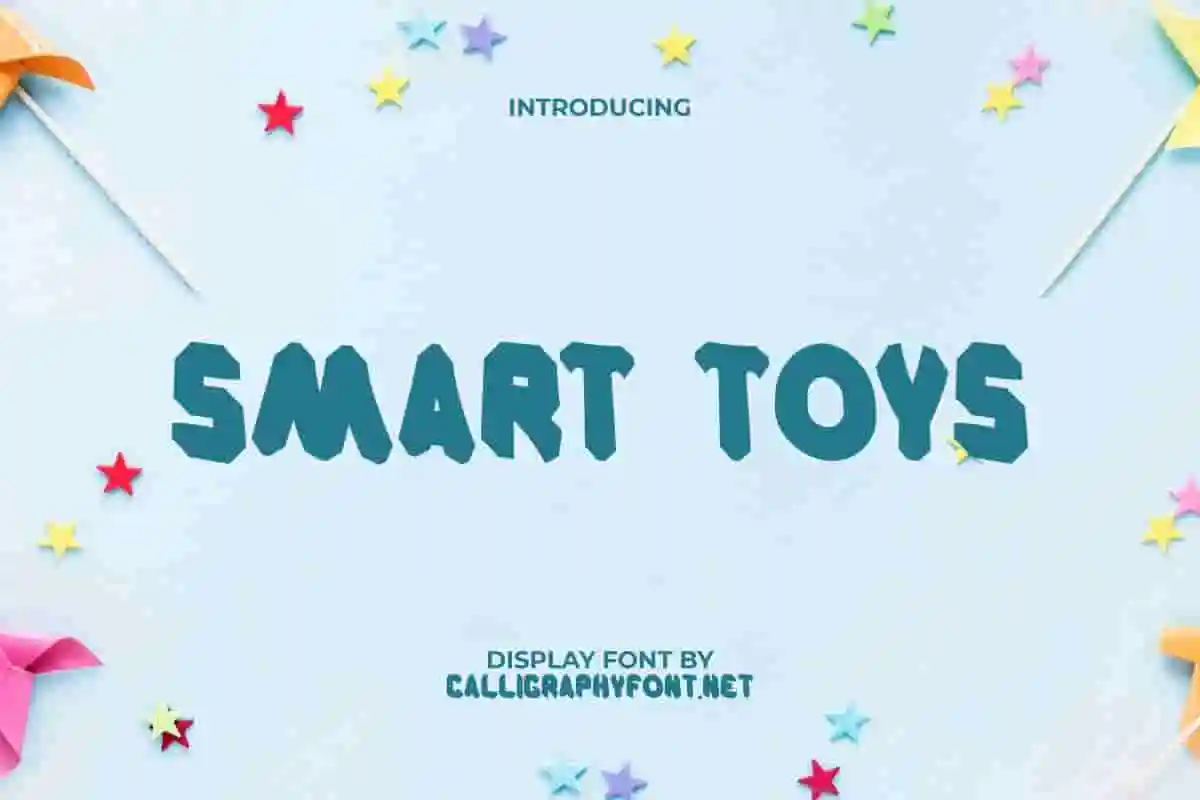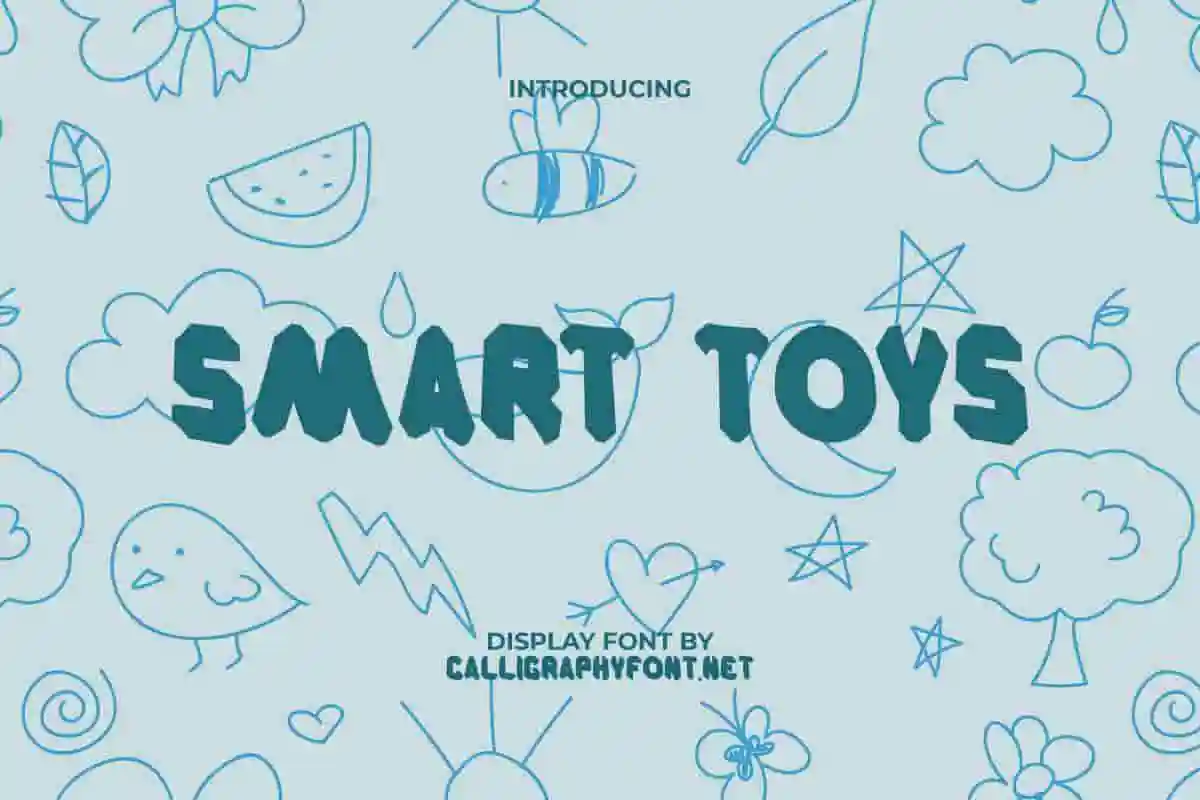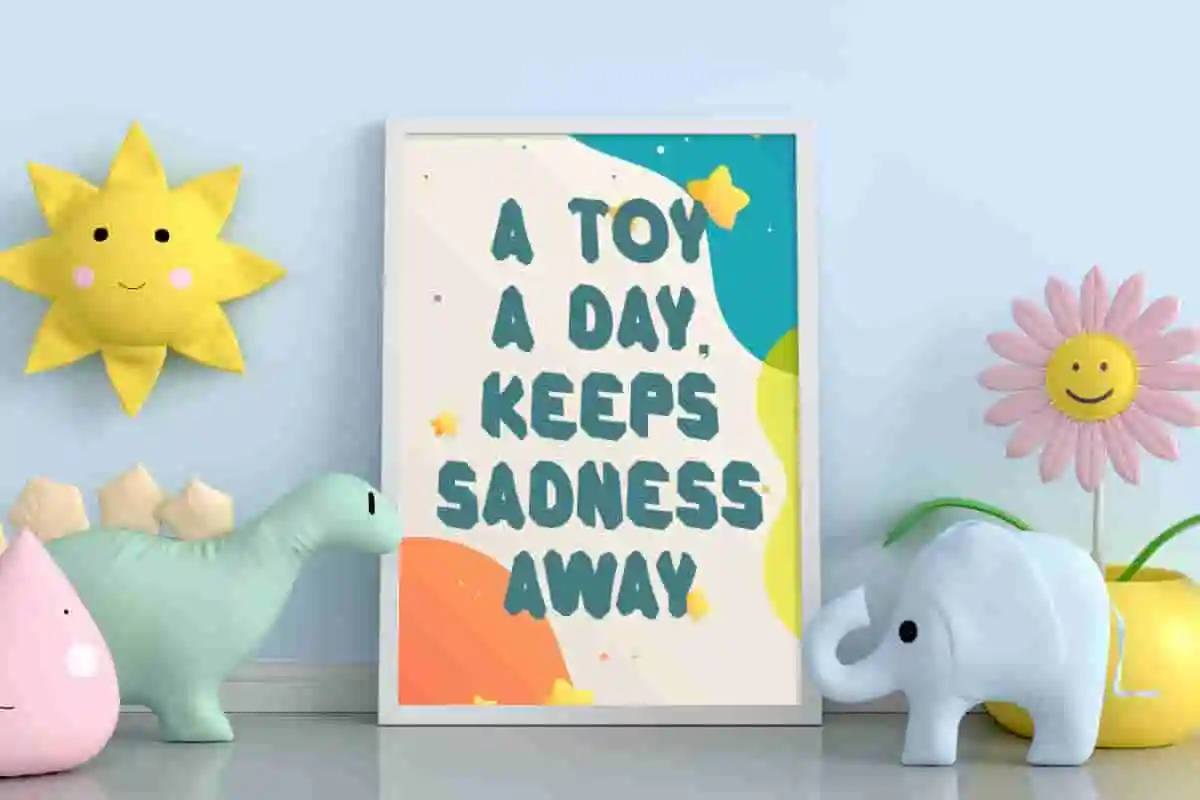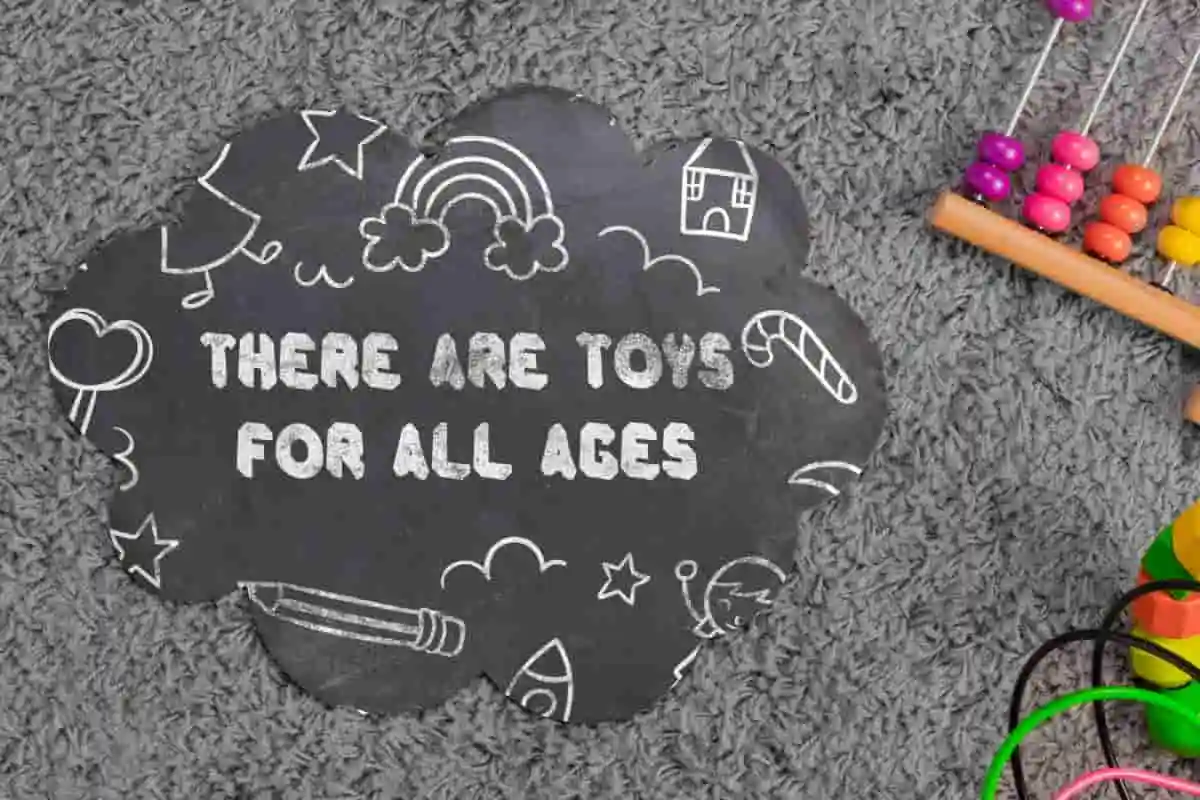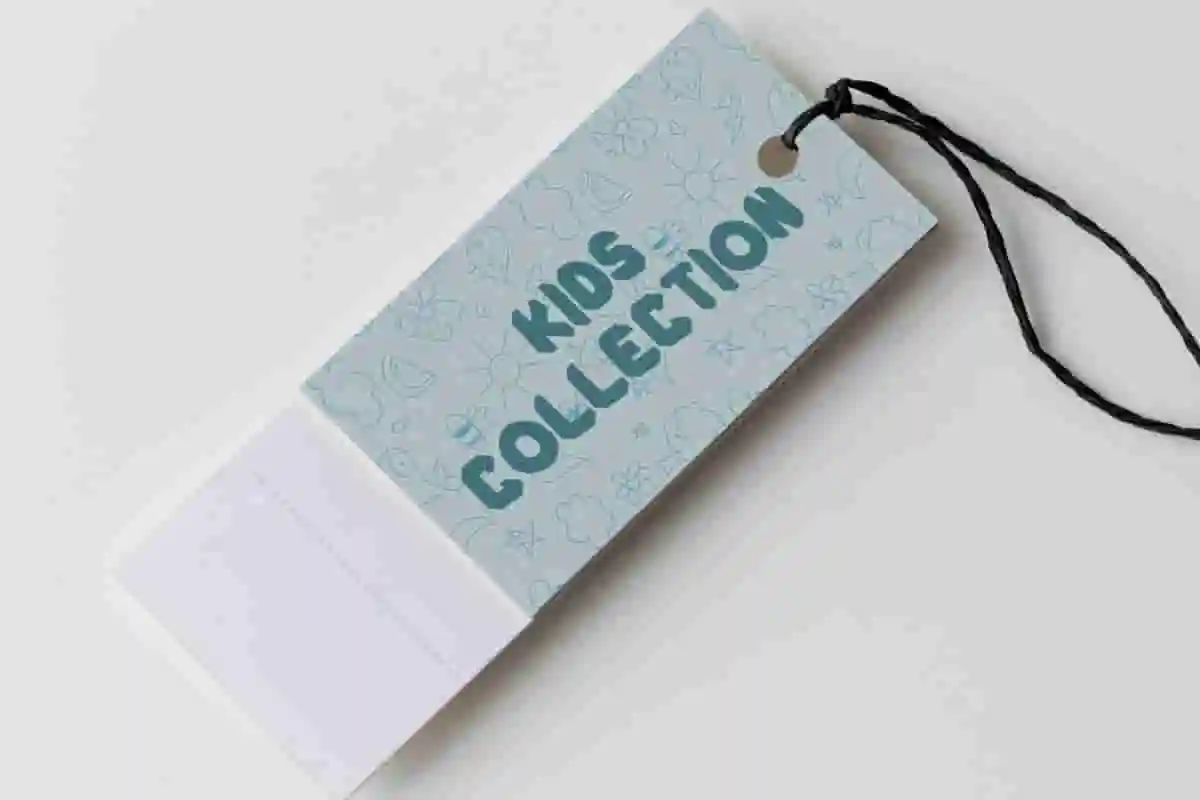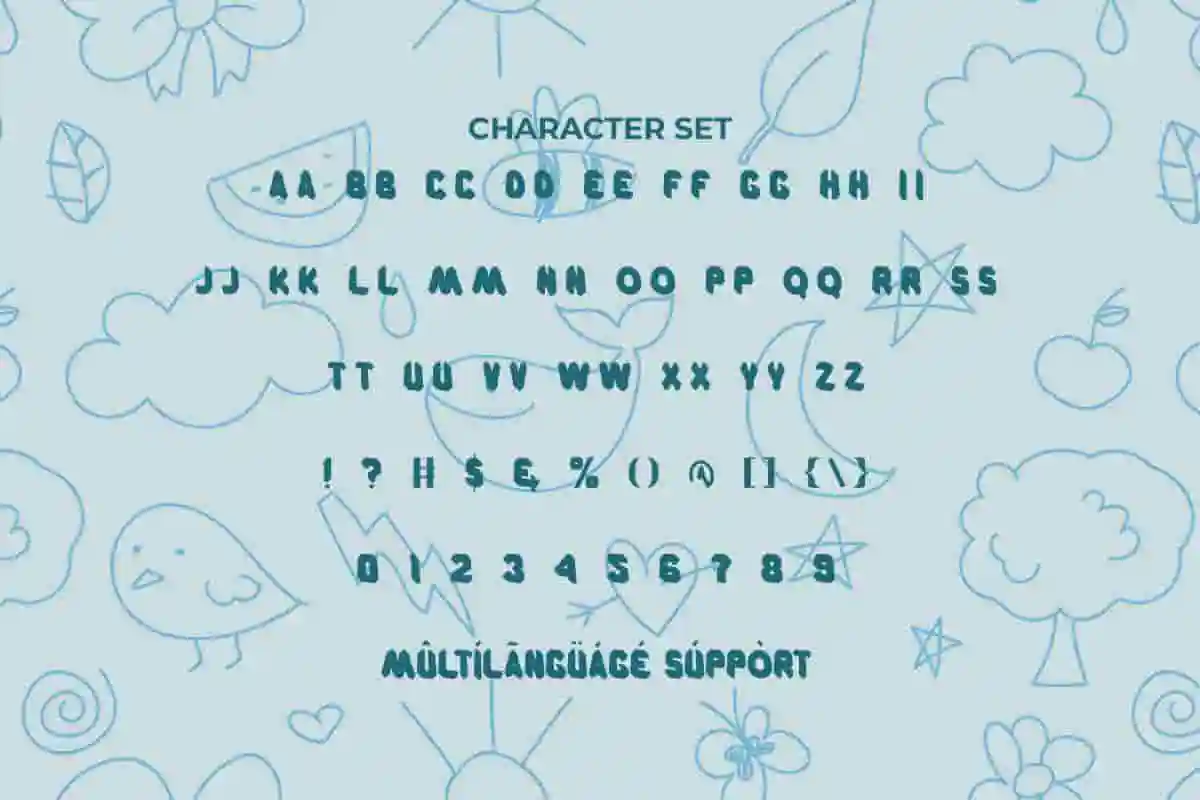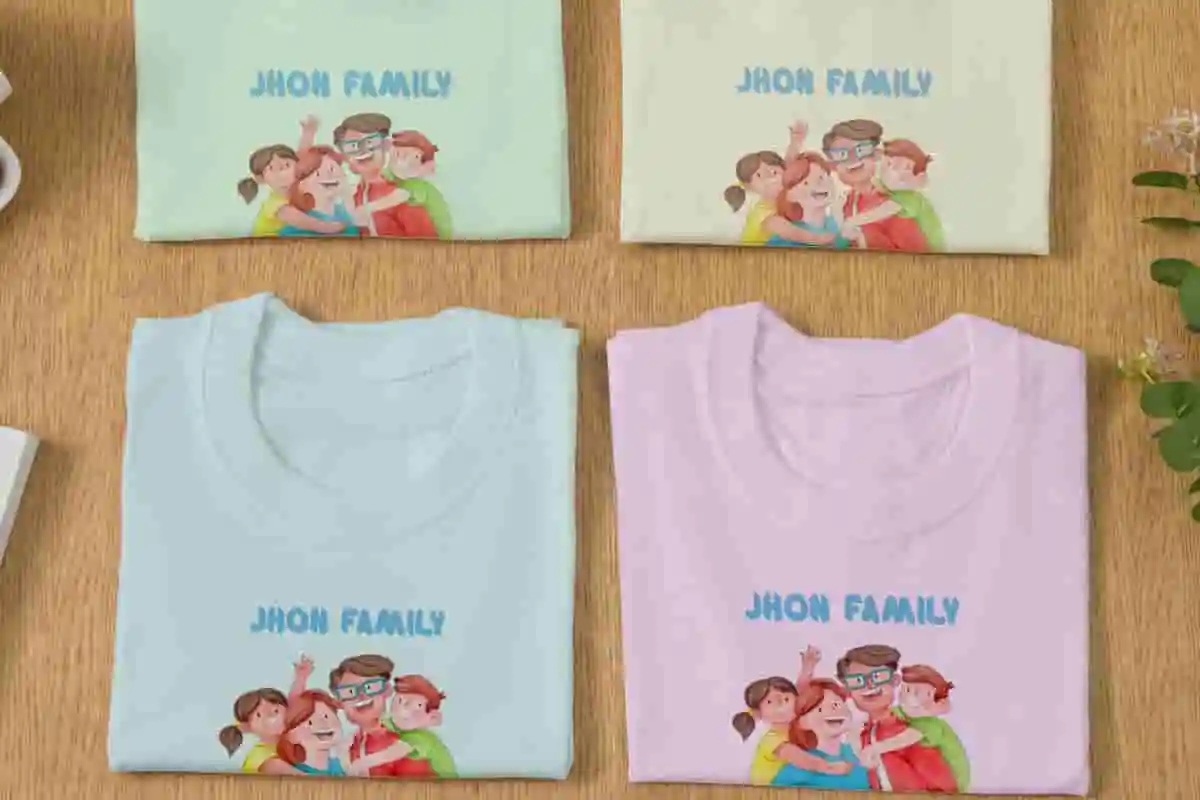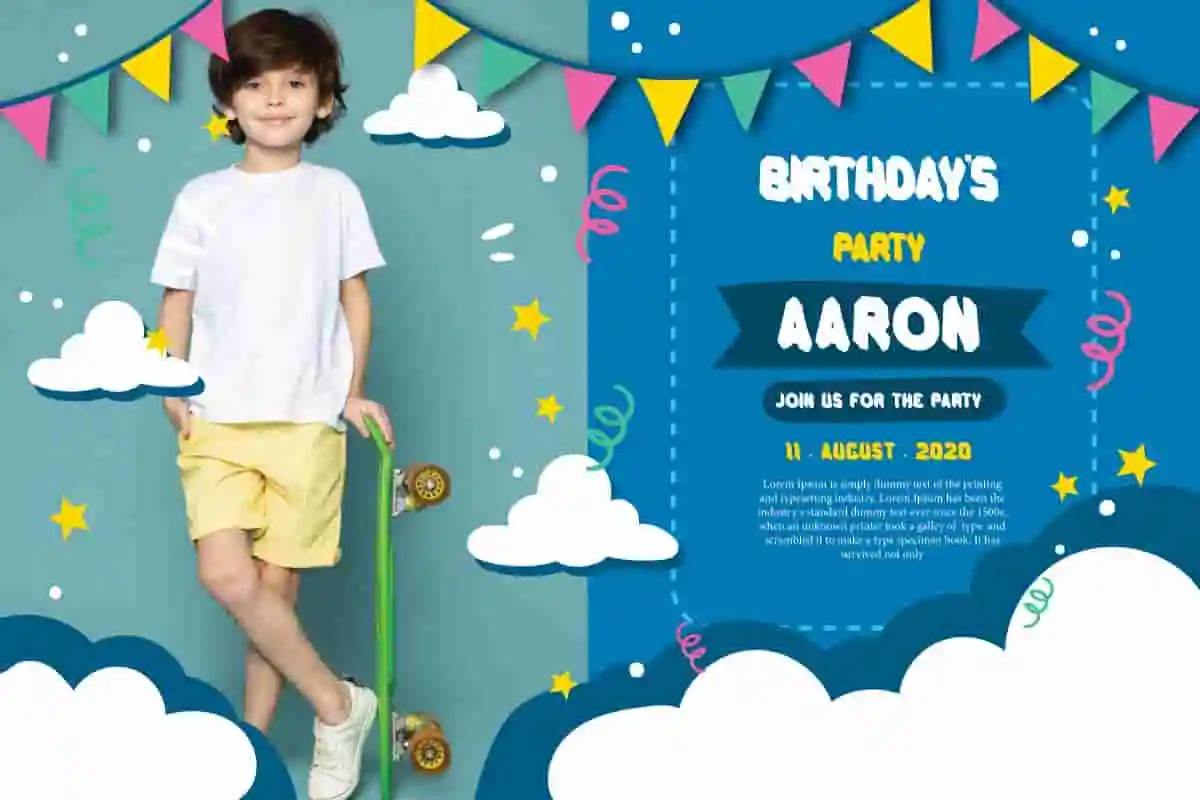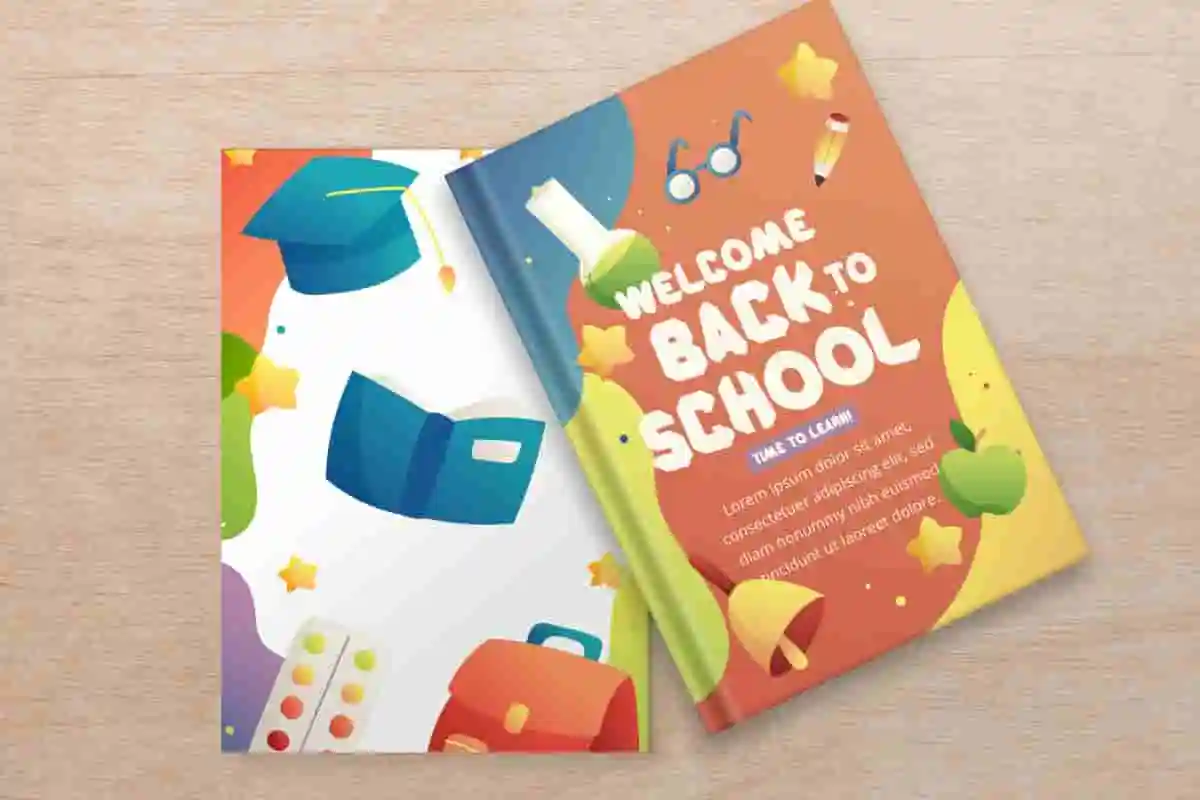
Smart Toys Display Font
Smart Toys Font is an adorable playful display font that brings out the joy and enthusiasm of children. It will be great for baby cloth brand, education, header, invitation, library, sticker, and anything else that requires a cheerful look.
Smart Toys Font is an adorable playful display font with an attractive appearance, created by CalligraphyFonts. This is a bold block typeface that brings fun and focused attention that would be perfect for any creative project, such as billboard, brand logo, brochure, header, invitation, label, packaging design, poster, quotes, screen print, stationery, sticker, and much more.
Bring a world of fun, color, and imagination to your designs with Smart Toys Display Font. This unique typeface is specially crafted to capture the joyful spirit of childhood, making it the perfect choice for projects that need a playful and energetic touch. Whether you are working on children’s books, toy packaging, school posters, or party invitations, Smart Toys Display Font will instantly brighten your design and create a cheerful, engaging atmosphere.
The font features bold, rounded characters with a friendly and approachable style. Its playful design makes it easy to read while still delivering a whimsical personality that appeals to both kids and adults. This combination of readability and charm ensures that your message stands out in a memorable way.
With Smart Toys Display Font, you can unleash your creativity across multiple projects: from branding for educational businesses to colorful social media posts, eye-catching product labels, or even classroom decorations. The font is versatile, scalable, and designed to look stunning in both print and digital formats.
Don’t settle for dull, ordinary typography when you can add joy and character to your designs. Smart Toys Display Font is more than just a typeface—it’s a creative tool that brings smiles and excitement to every project.
Smart Toys Display Font takes inspiration from the title of a children’s book combined with an old school style. It’s been refined for form and readability so it’ll be great for any industry, including: accessories, advertisement, author, baby gear, children’s events or parties, clothing brand, education, handicraft, interior design, kindergarten, library, photography, printing, publishing, restaurant, toyshop, etc.